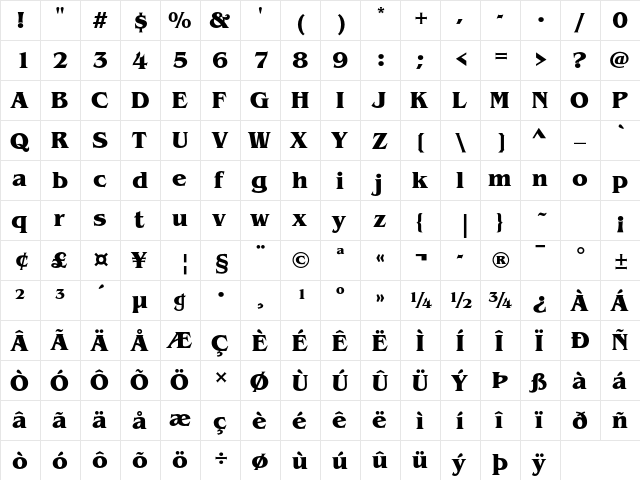
ITC Benguiat Std Bold Font Preview
ITC Benguiat Std Bold
ITC Benguiat Std Bold Font Details
| Designer | Ed Benguiat |
Design Context for ITC Benguiat Std Typeface
ITC Benguiat Std takes a measured approach to typography — its balanced proportions and neutral character make it a reliable workhorse for both digital and print work. Its bold stroke weight gives it real presence on the page.